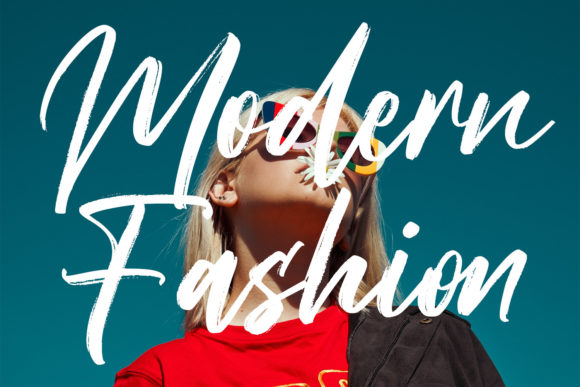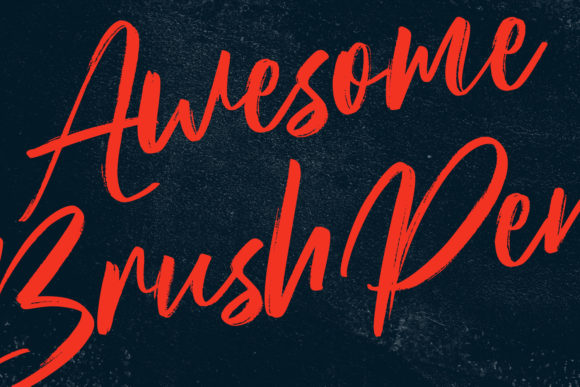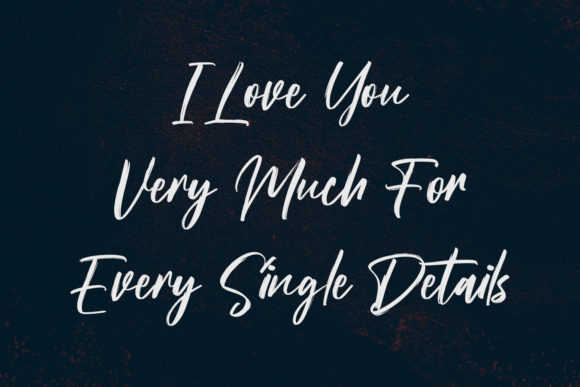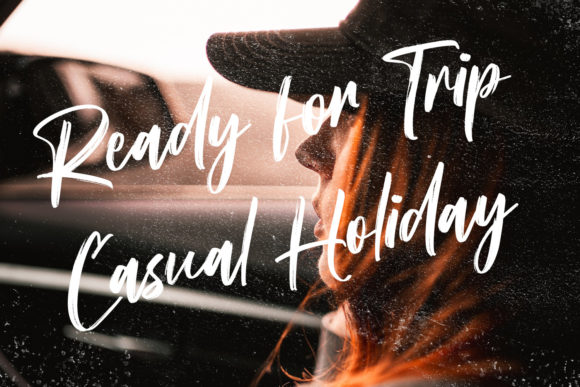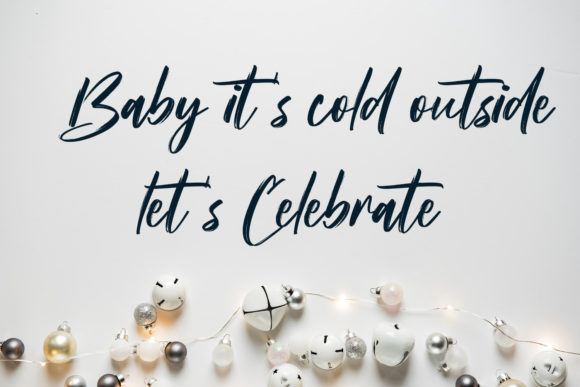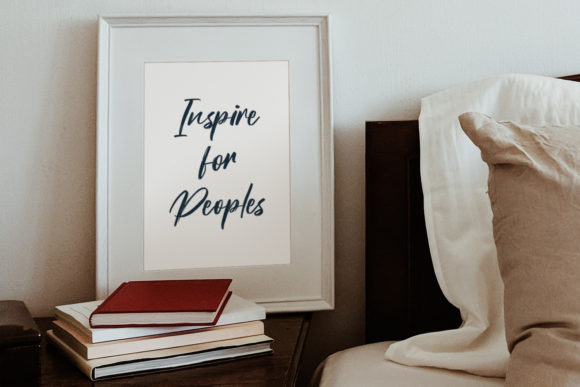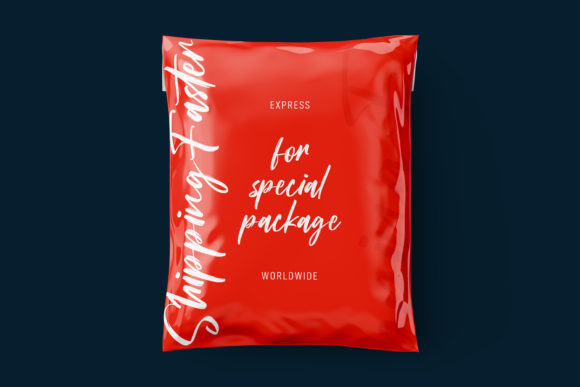
About Roxfranks Font
Roxfranks is a stylish and brushed handwritten font. It looks beautiful on a variety of designs requiring a personalized style, such as wedding invitations, thank you cards, weddings, greeting cards, logos and so on.